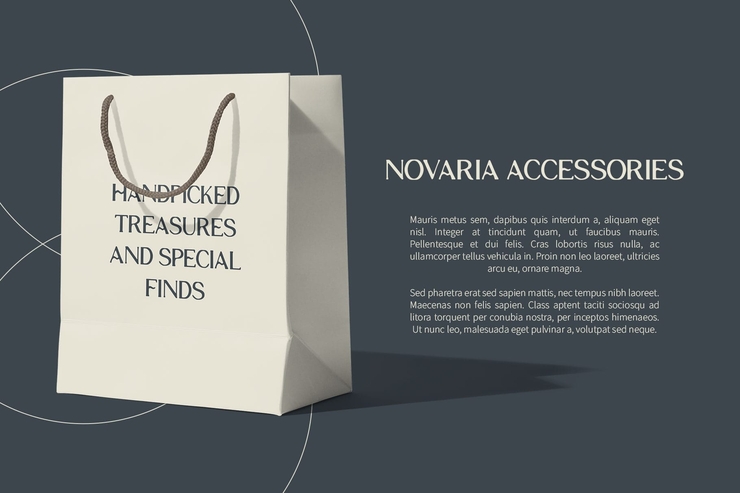
Glastone Blur Stylish Trendy Tech Elegant English Font
Glastone Blur is a unique artistic English font that combines modern fashion, trendy style and futuristic technology with elegant glyph shapes. It features soft blurred strokes, sleek smooth lines and well-proportioned letter structures, presenting a delicate hazy aesthetic and premium tech atmosphere. The font balances trendy fashion sense, subtle futuristic vibes and timeless elegance, making each character look soft, sophisticated and visually attractive. Complete with full uppercase and lowercase letters, it is ideal for brand logos, fashion posters, tech banners, e-commerce headlines, cosmetic packaging, UI interface text and presentation typography. All glyphs keep clear scalability, easy to adjust size, color and blur effect without losing delicate texture and elegant styling. Suitable for designers, creative studios and commercial brand projects to add soft trendy tech charm to all design works.Free for Commercial Use / No Copyright